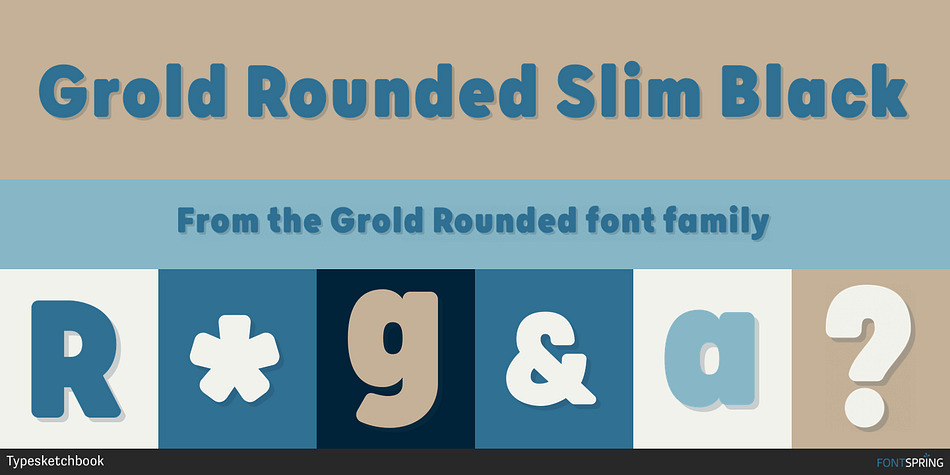
Grold Rounded Slim Black
Designed by Chatnarong Jingsuphatada, Grold Rounded is a sans serif font family. This typeface has forty styles and was published by Typesketchbook.
Grold Rounded is an altered modified from the form of the original “Grold” typeface. Designed to be more friendly, the font family has rounded terminals that harmonizes with rounded corners. With all of these features, “Grold Rounded” is a prominent, eye-catching and unique typeface. It comes with 9 weights with 2 Hight options in order to suit for a multifunctional usage, especially for cooperative work, such as website, magazine, editorial, publishing, as well as packaging.